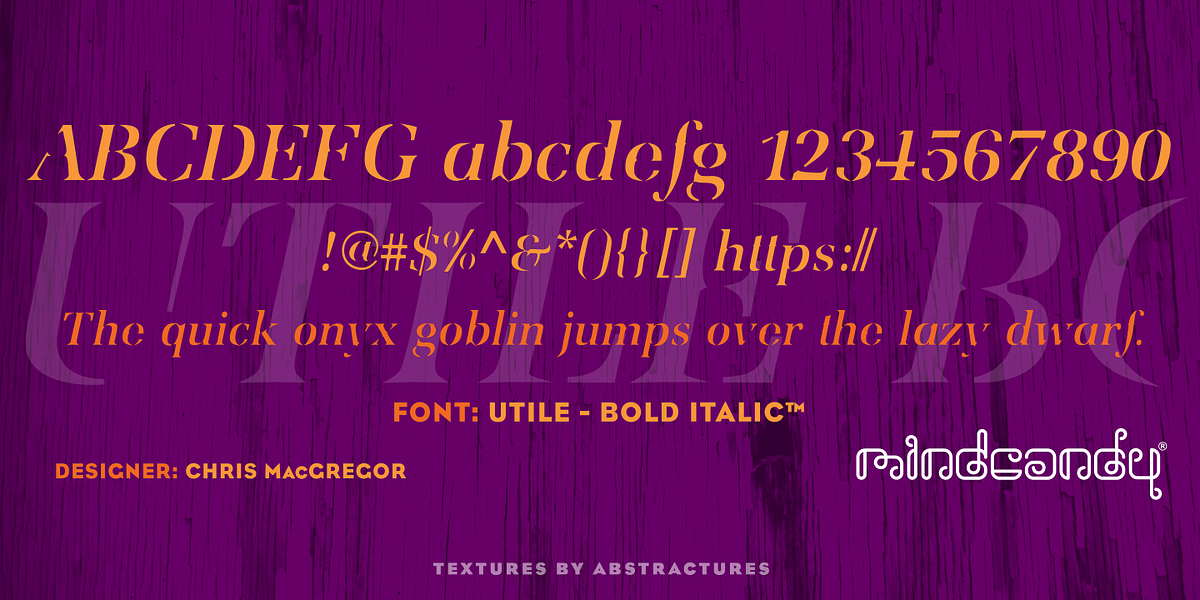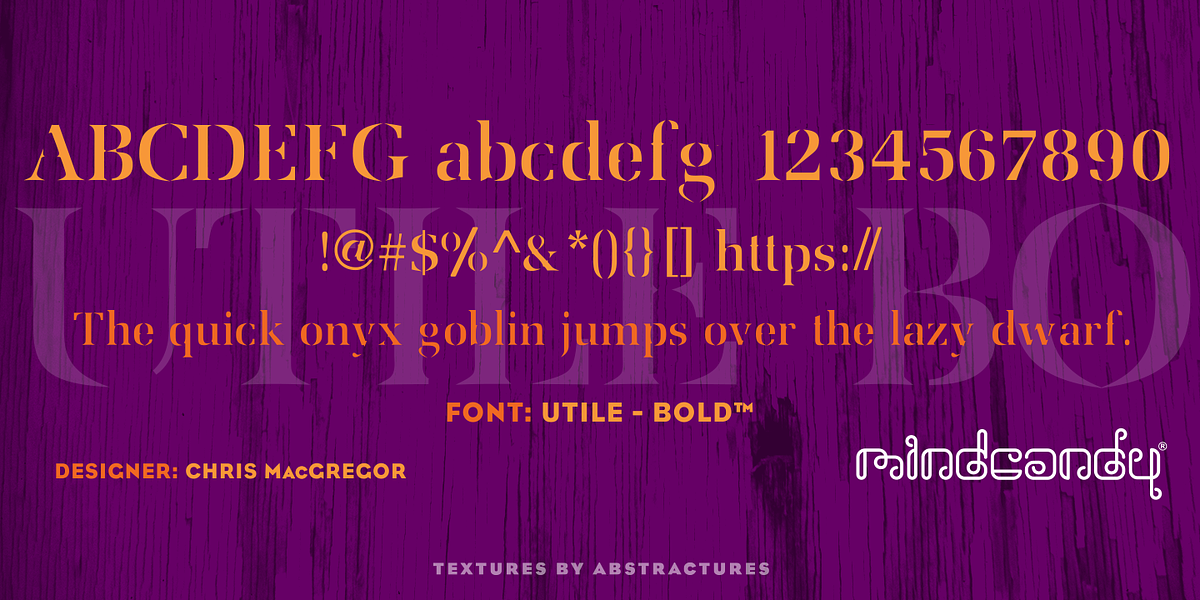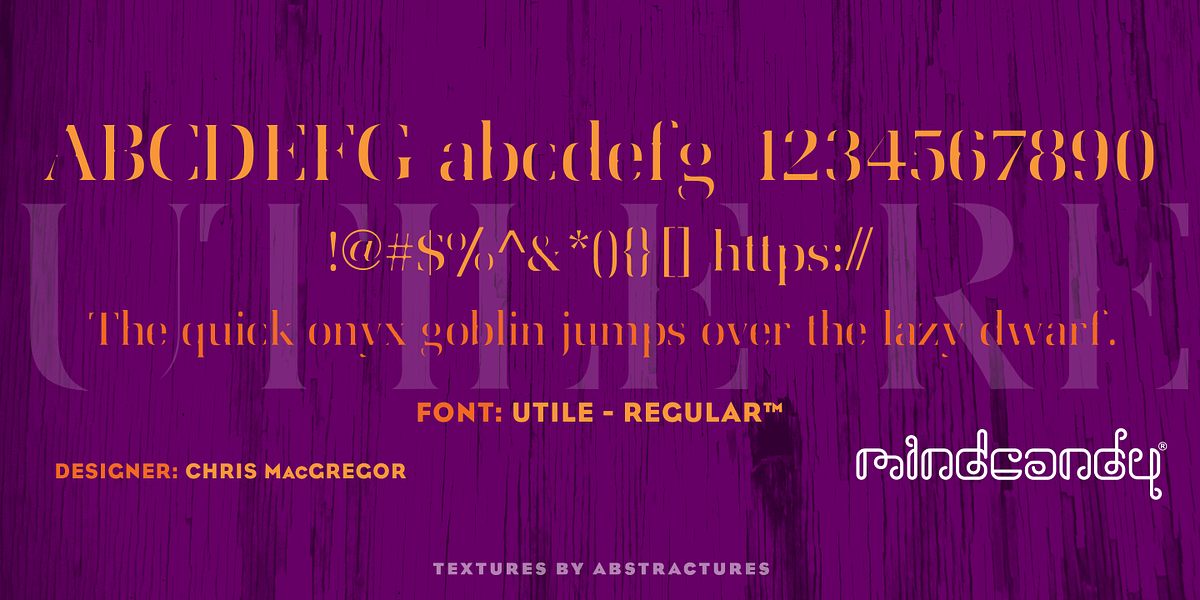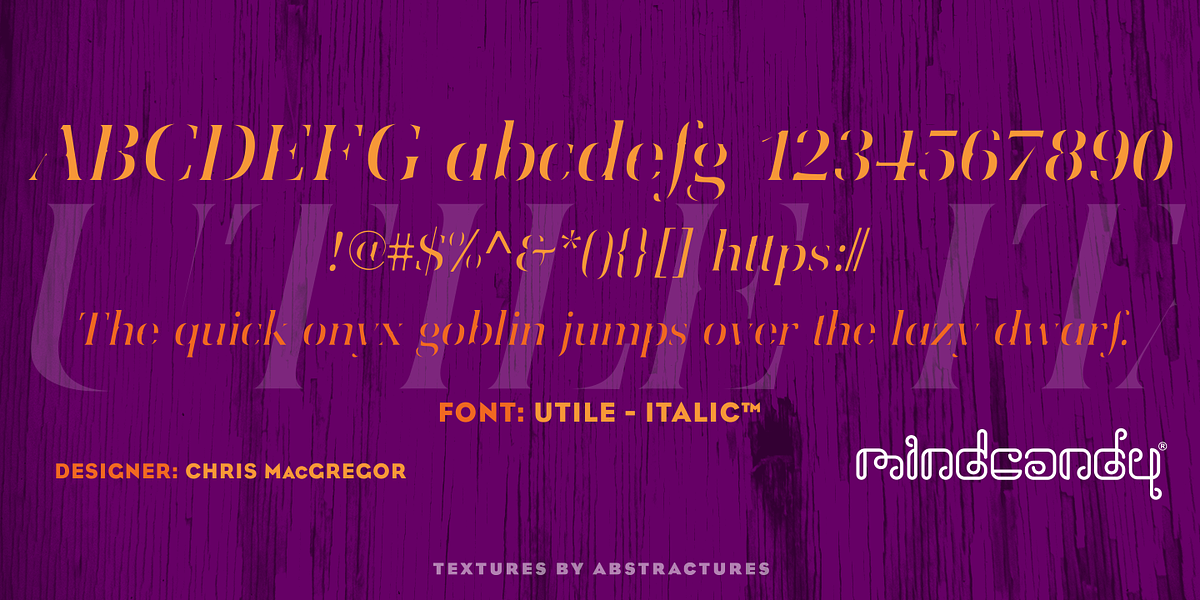
Utile™
This font is a display serif typeface with distinct flared serifs. Its elegant design makes it suitable for headlines, branding materials, and invitations where a sophisticated look is desired.